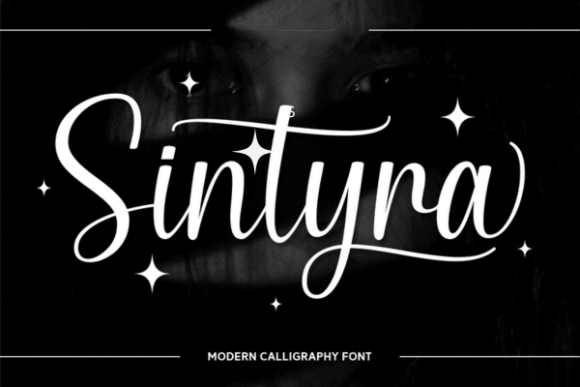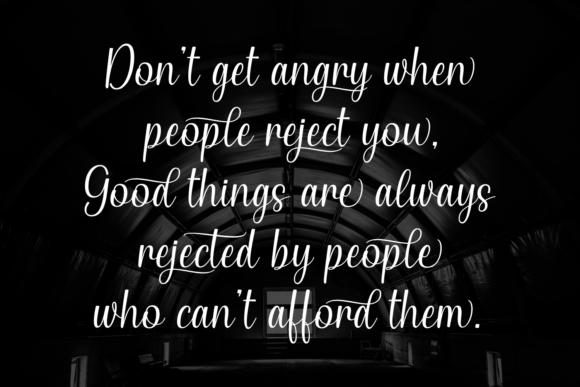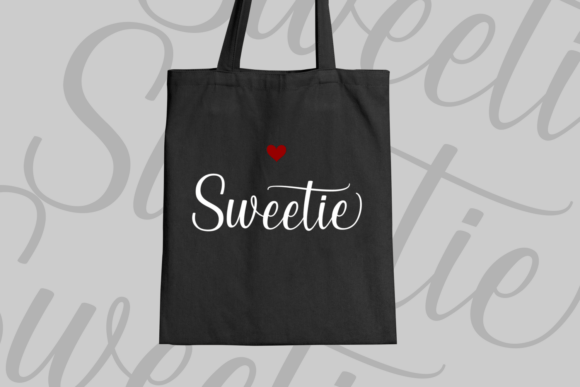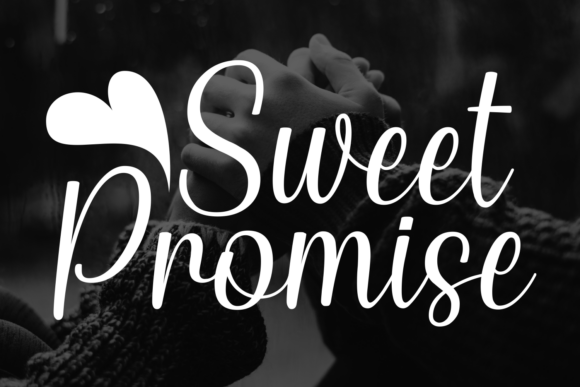
Sintyra Font: Elegant Calligraphy for Wedding & Branding Design
About the Sintyra Font
Make a bold statement with Sintyra Font, a powerful and memorable font. Sintyra is an elegant modern calligraphy font with striking swashes and graceful curves. Designed to make your typography shine, it’s ideal for wedding invites, beauty branding, social media posts, and high-end packaging. Its flowing lines and enchanting style bring a luxurious, romantic feel to any design.
Sintyra Font Usage Examples
Sintyra Font Example